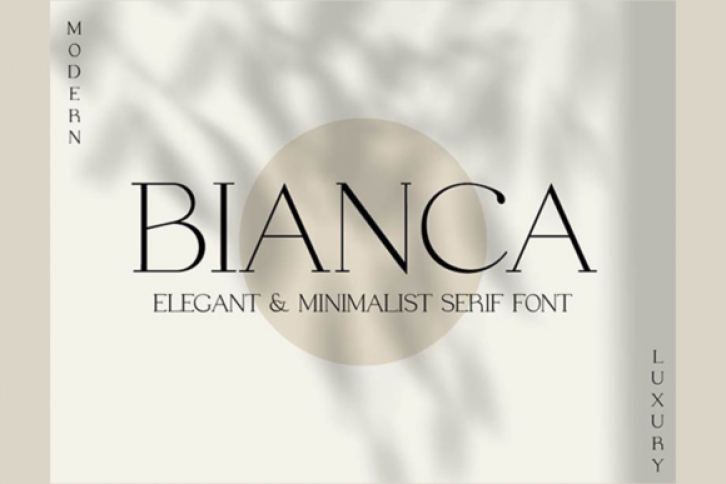
Bianca is a modern and luxurious all-caps serif font. This font is thin, minimalistic, and classic and will instantly enhance the beauty of your projects.